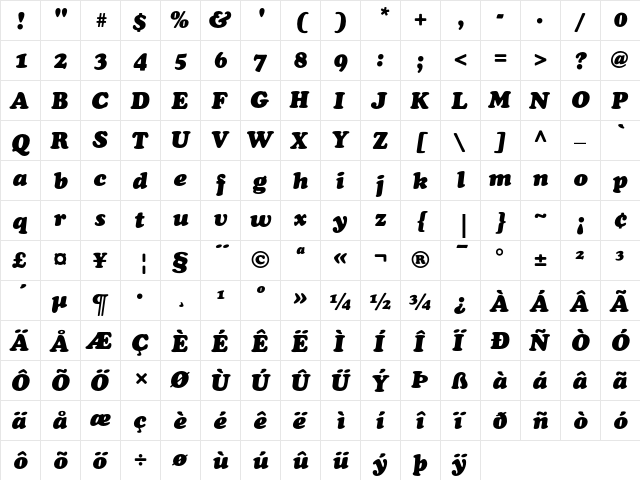
Cooper Black Italic
Design Context for Cooper Black Typeface
Cooper Black offers clean, dependable letterforms without strong stylistic allegiance, making it a practical choice for designers who need flexibility. Its italic angle brings a sense of urgency and motion to the letterforms.
Pro Tip: Try Cooper Black for annotation and caption copy alongside an upright companion — the contrast in angle creates a dynamic but ordered typographic system.